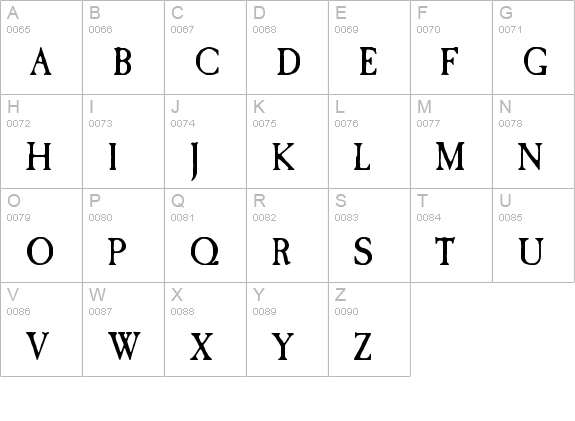
CaslonAntT Font Details
CaslonAntT is a classic and elegant serif font that exudes sophistication and timelessness. With its graceful curves and clean lines, this font is perfect for adding a touch of refinement to any project. Whether you're designing a wedding invitation, a business card, or a website, CaslonAntT will lend an air of sophistication to your work. What makes CaslonAntT even more appealing is that it is completely free. Yes, you read that right - this beautiful font is freely available to download at FontsMarket.com. So go ahead, elevate your designs with CaslonAntT and make a lasting impression with its timeless charm.